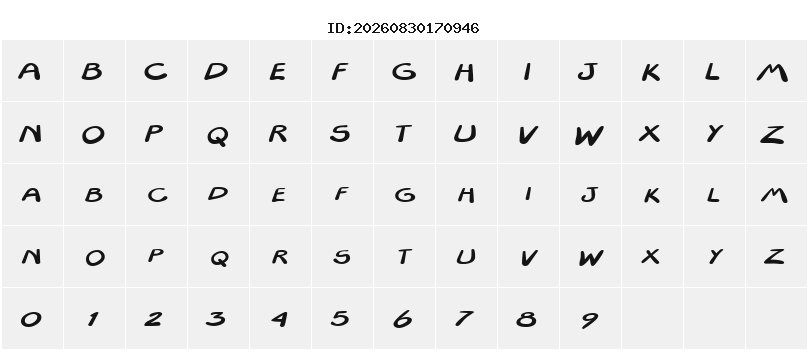
• Font Name: Textapoint
Textapoint.ttf is a modern, elegant sans-serif font designed for ultimate readability and visual harmony. Perfect for branding, headlines, web design, and print materials.